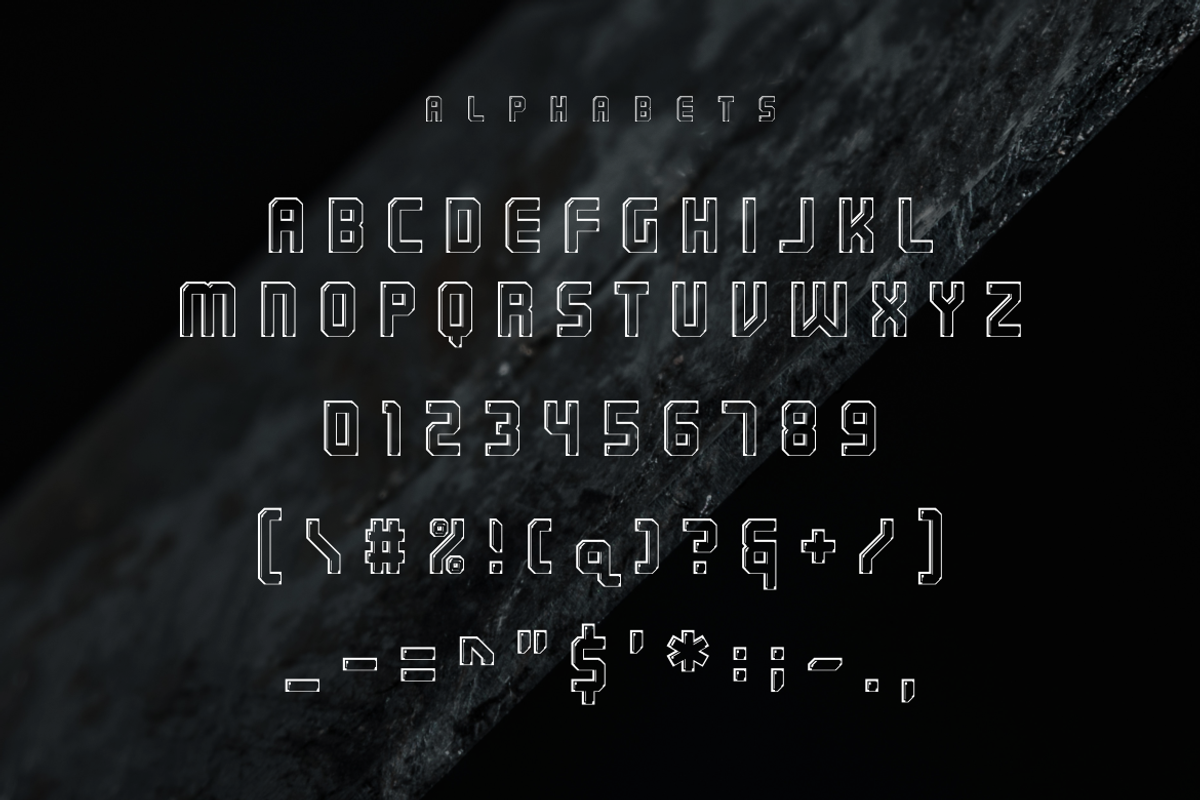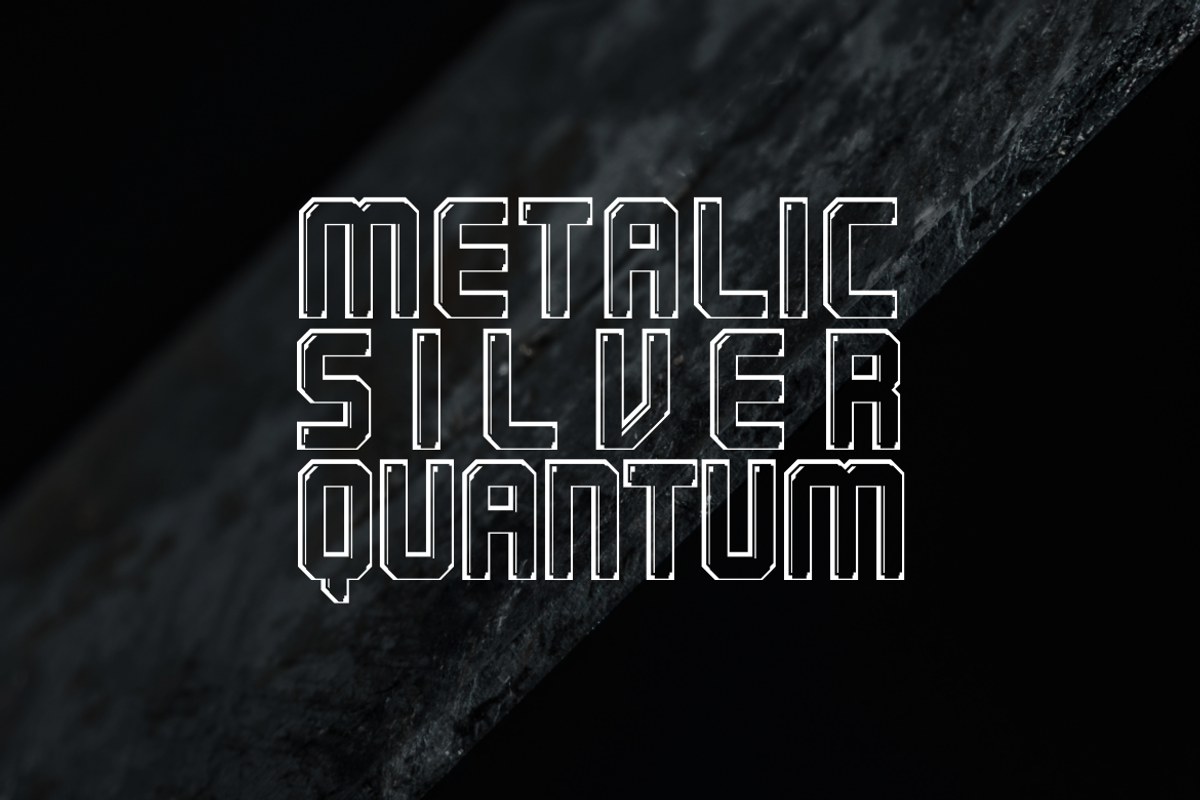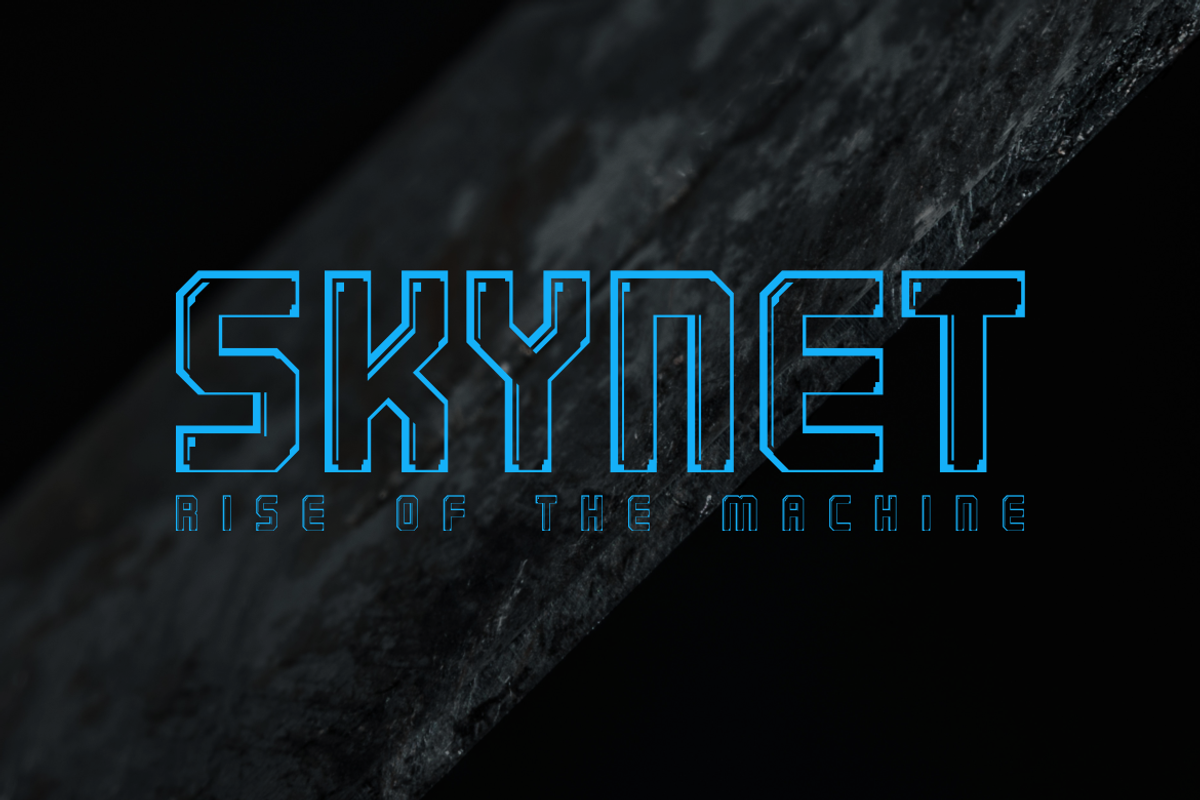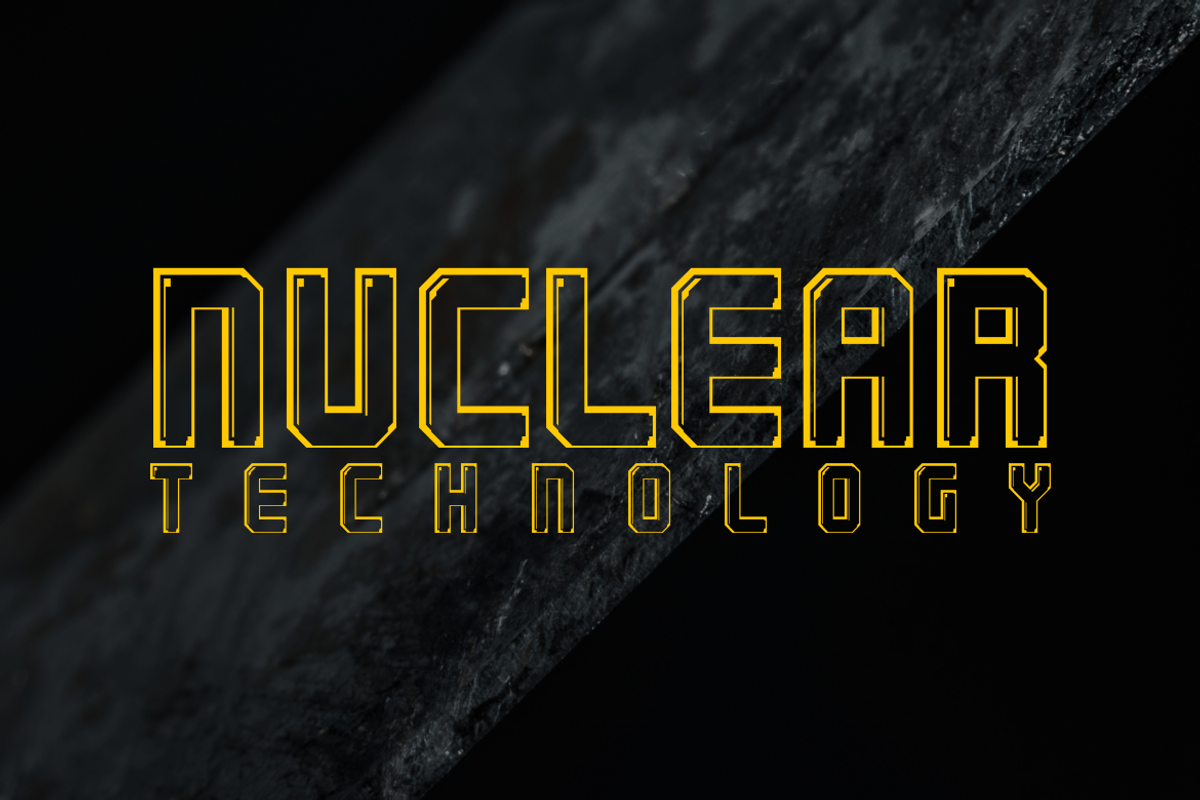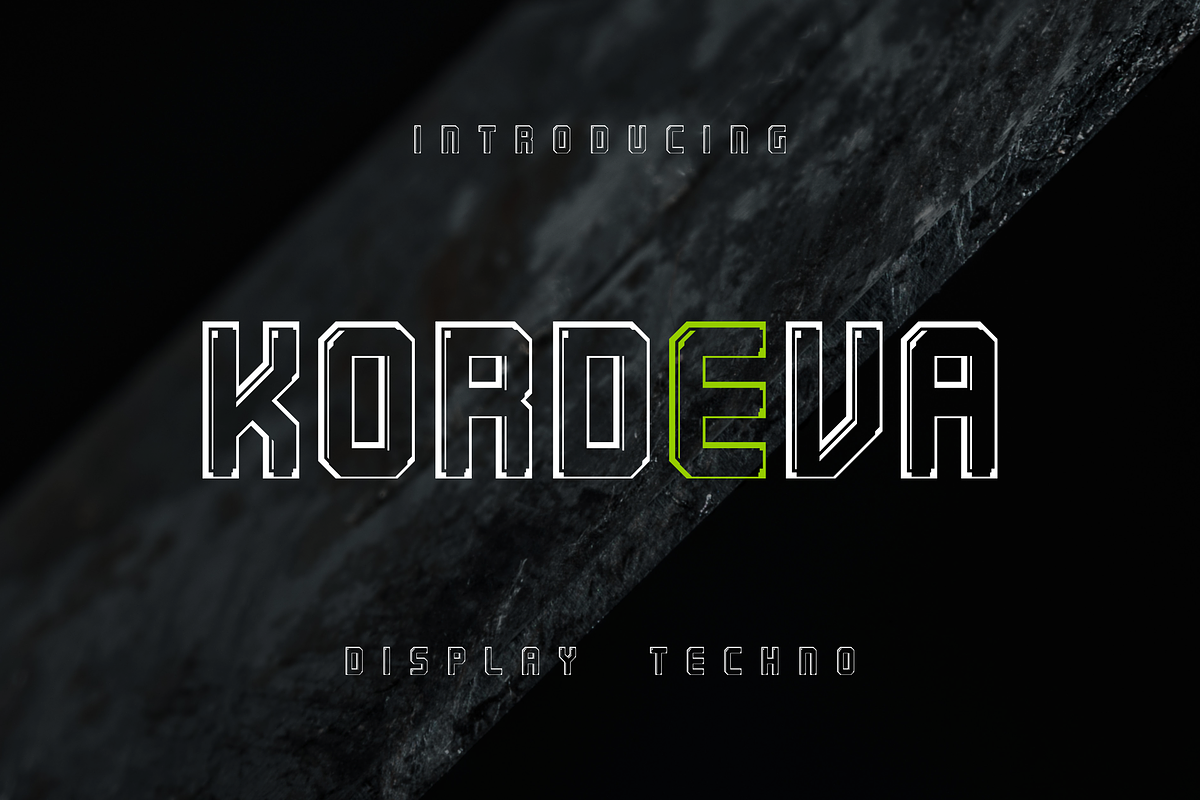
Kordeva Display Techno Font
is a font with a new challenge for the world full of artificial intelligence in this era. so we as font designers keep fighting not to lose with that. we do our best to continue to empower humans as the greatest gift from God. so we created the font with so much thought that even machines could never match it.
This font has the theme of strength, specifically for products that are strong and sturdy. the shape of the character is not easy to imitate, even in the class of an artificial intelligence machine.
we challenge the Machines as it was filmed in "Terminator Salvation", where Human figures are erased in Their minds (Artificial Intelligence Robots)